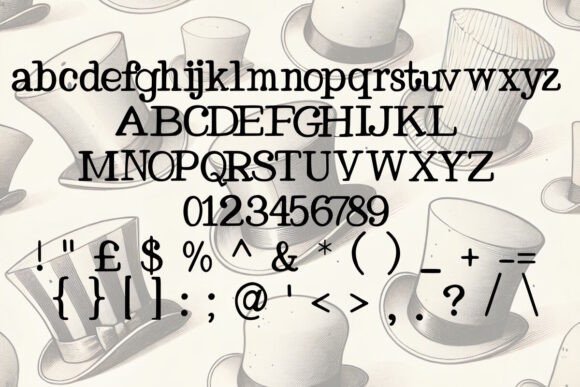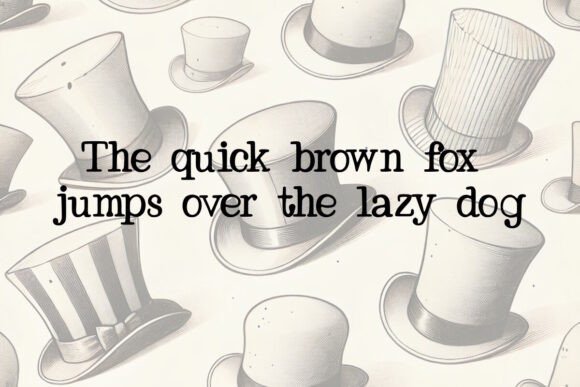
The Dented Top Hat Font: A Charming Serif with a Playful Twist
Have you ever been working on a design project, and suddenly, you just can’t seem to find the right font? You’re not alone! I recall a particularly frustrating moment when I was trying to create a sophisticated yet playful invitation for a friend’s wedding. The client wanted something that exuded elegance but also had a dash of whimsy. That’s when I stumbled upon the Dented Top Hat font, and it was love at first sight! 💕
A Personal Review: What I Love and What to Watch Out For
As a designer, I always look for fonts that can bring a unique personality to my projects. Here’s my honest review of the Dented Top Hat font:
- ✨ Elegant yet playful vibe: This font perfectly balances sophistication with a lighthearted charm.
- ✅ Classic serif style: The slightly uneven strokes and traditional serif design make it perfect for designs that need a touch of refinement.
- 💫 Versatility: Dented Top Hat works beautifully for both digital and print designs, from invitations to branding.
- ⚠️ Limited use in very formal contexts: While it’s elegant, it might not be suitable for extremely formal or traditional projects.
- 🤔 May require manual kerning: As with many handwritten fonts, some letters may need a bit of manual adjustment for optimal spacing.
The Dented Top Hat font was inspired by the classic gentleman with a twist. Imagine a posh gent with impeccable taste but perhaps a scuffed shoe or, you guessed it, a dented top hat. The designer aimed to capture this blend of sophistication and playfulness in a font that’s both elegant and charming.
Q: What makes Dented Top Hat unique?
A: Its blend of classic serif style with slightly uneven strokes gives it a charming, elegant yet playful vibe.
Q: Is Dented Top Hat suitable for formal projects?
A: While it’s elegant, it might not be suitable for extremely formal or traditional projects. It’s best used where a touch of whimsy is desired.
Q: Does Dented Top Hat support OpenType features?
A: Yes, it supports OpenType features, allowing you to access stylistic alternates and glyphs for more creative freedom.